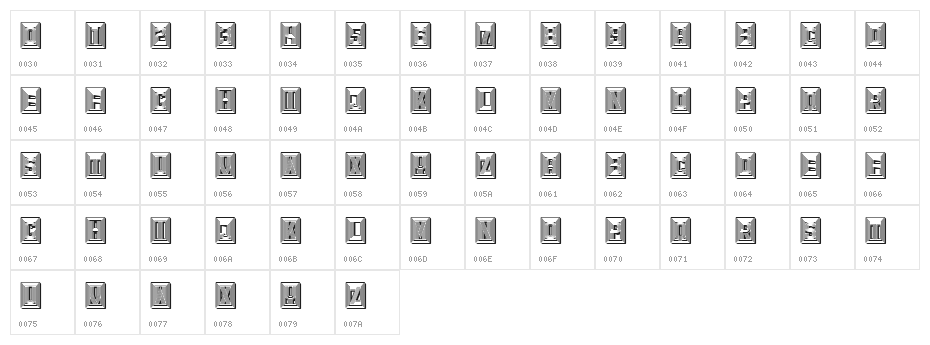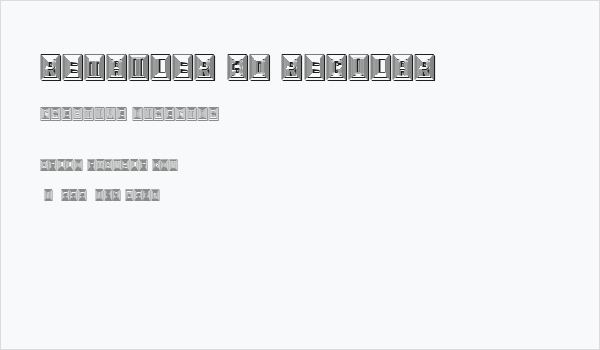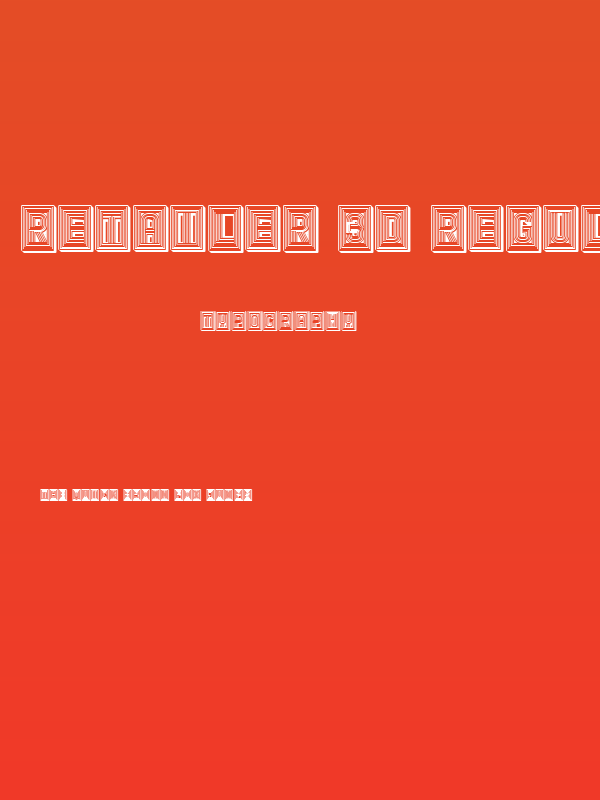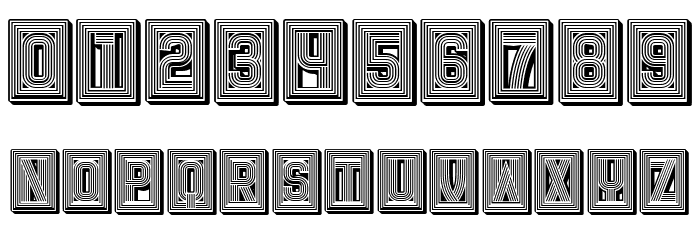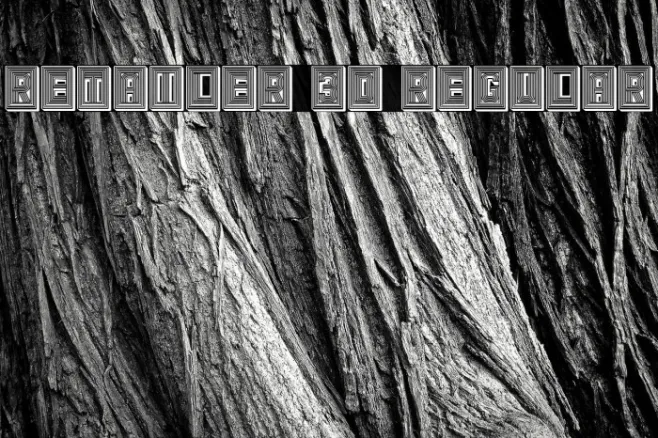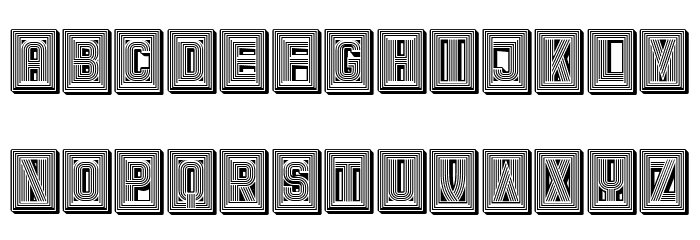
Retailer 3D Regular Font
Retailer 3D Regular Description
This font features a bold, three-dimensional design with intricate line work that creates a sense of depth and movement. Each character is enclosed in a square, enhancing its geometric and structured appearance. The lines within each letter form a maze-like pattern, adding a dynamic and visually engaging element. This font is highly decorative, making it ideal for projects that require a strong visual impact. Its unique style is reminiscent of retro and futuristic designs, blending both eras into a cohesive aesthetic.
| Proposed Projects | Ideal for posters, album covers, branding, and any project needing a striking visual element. |